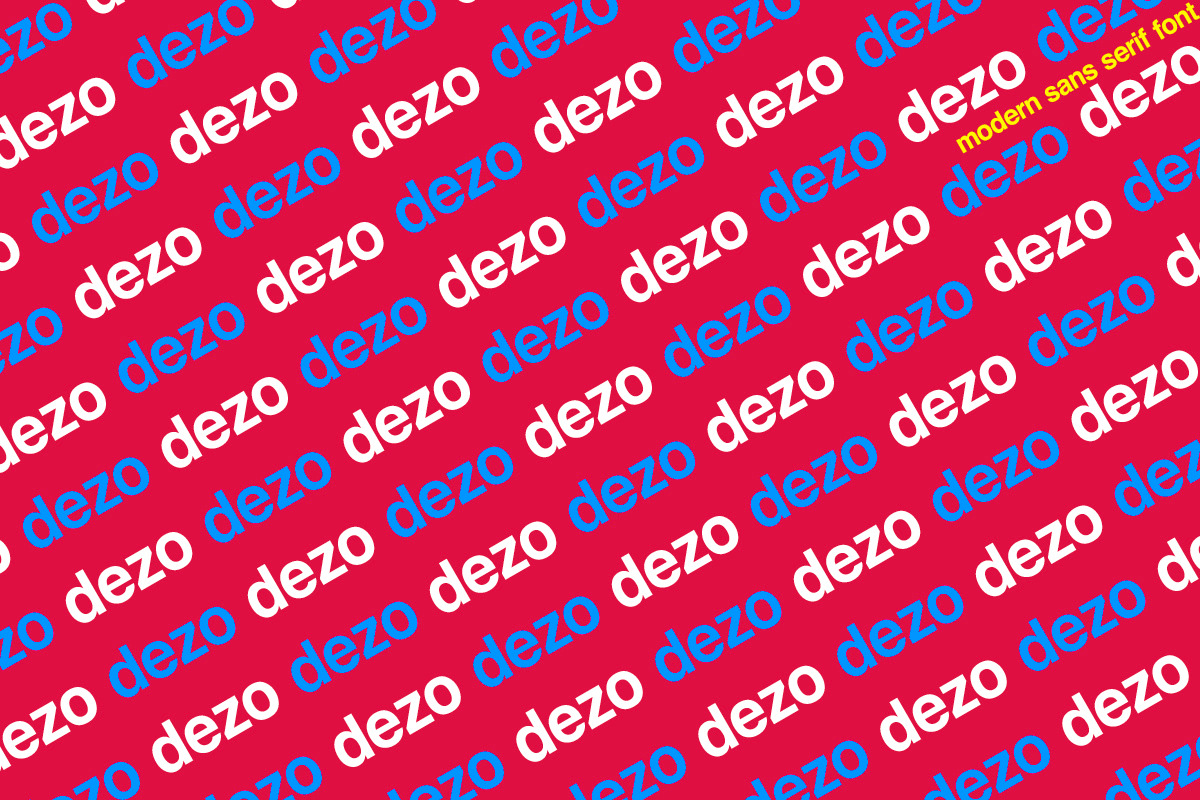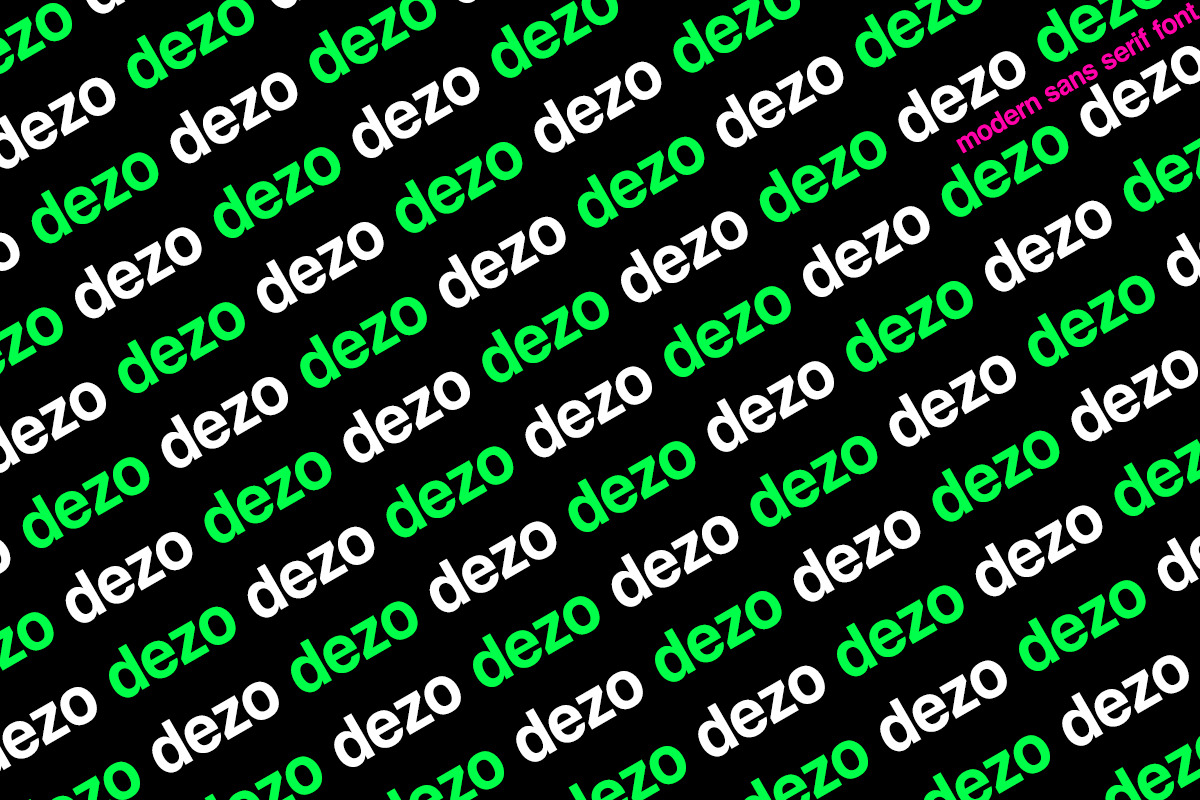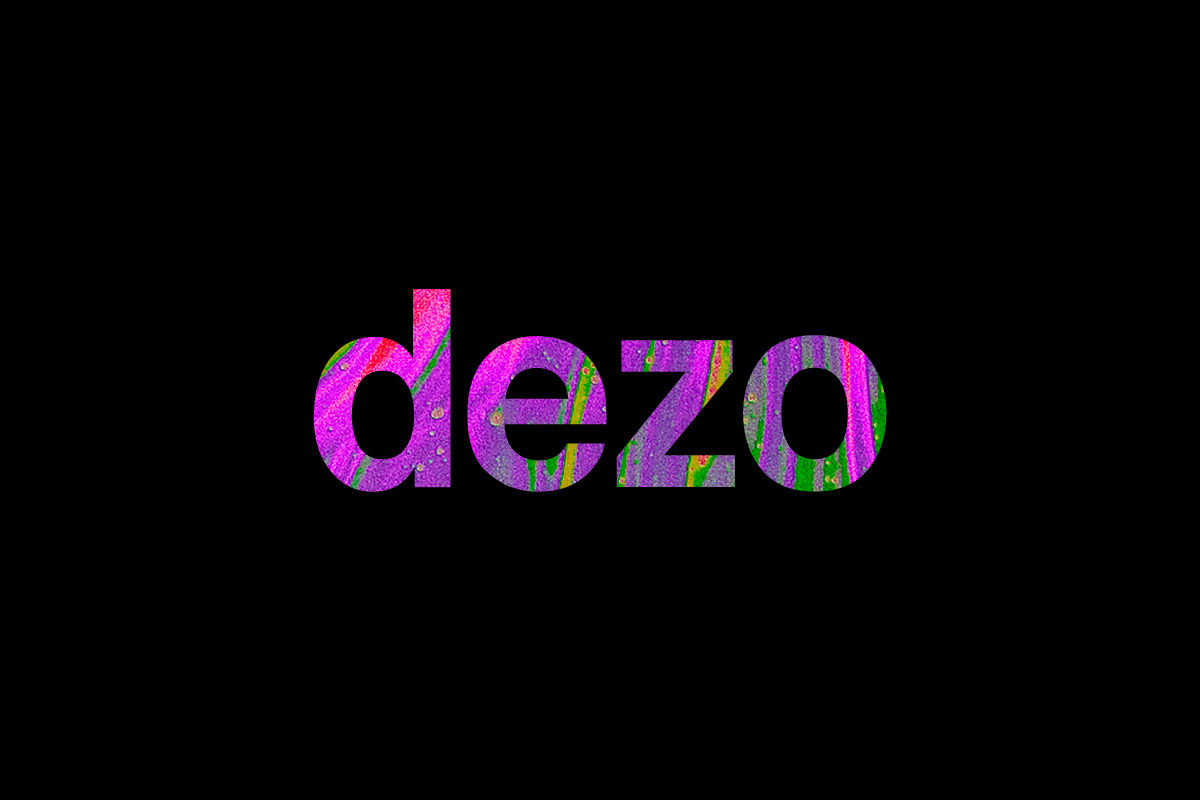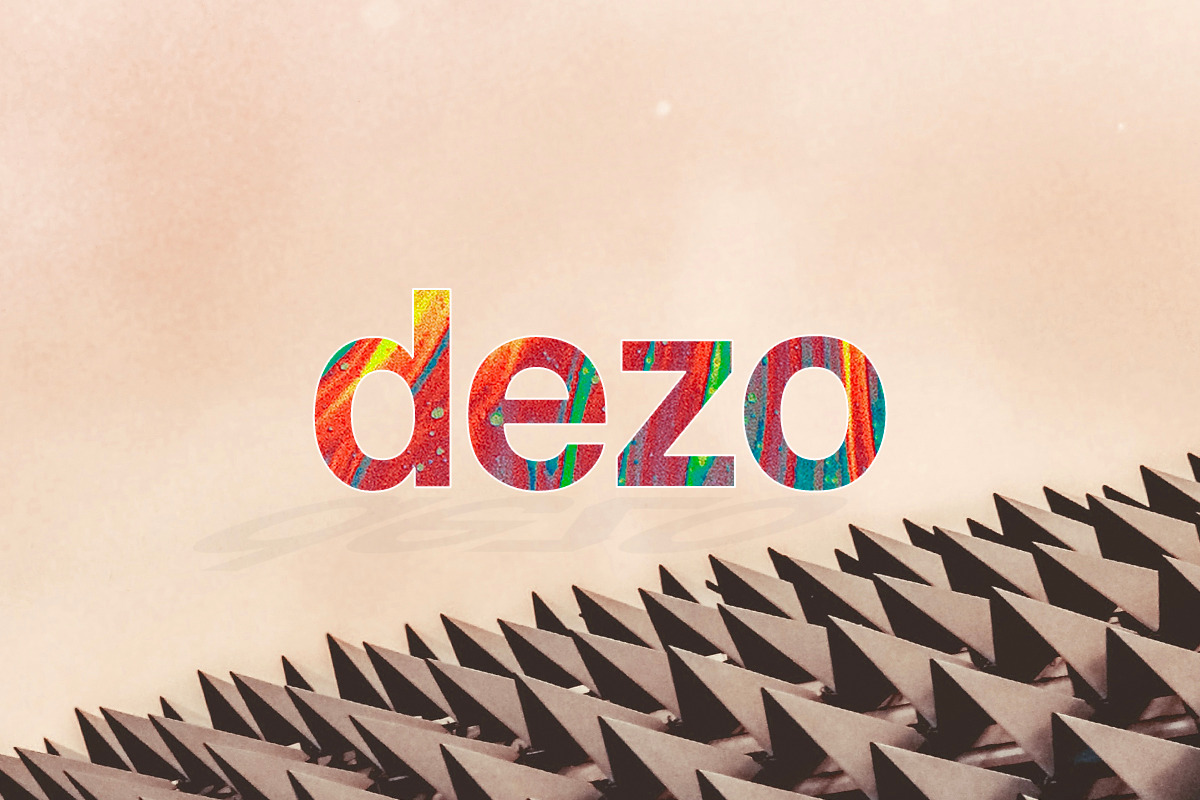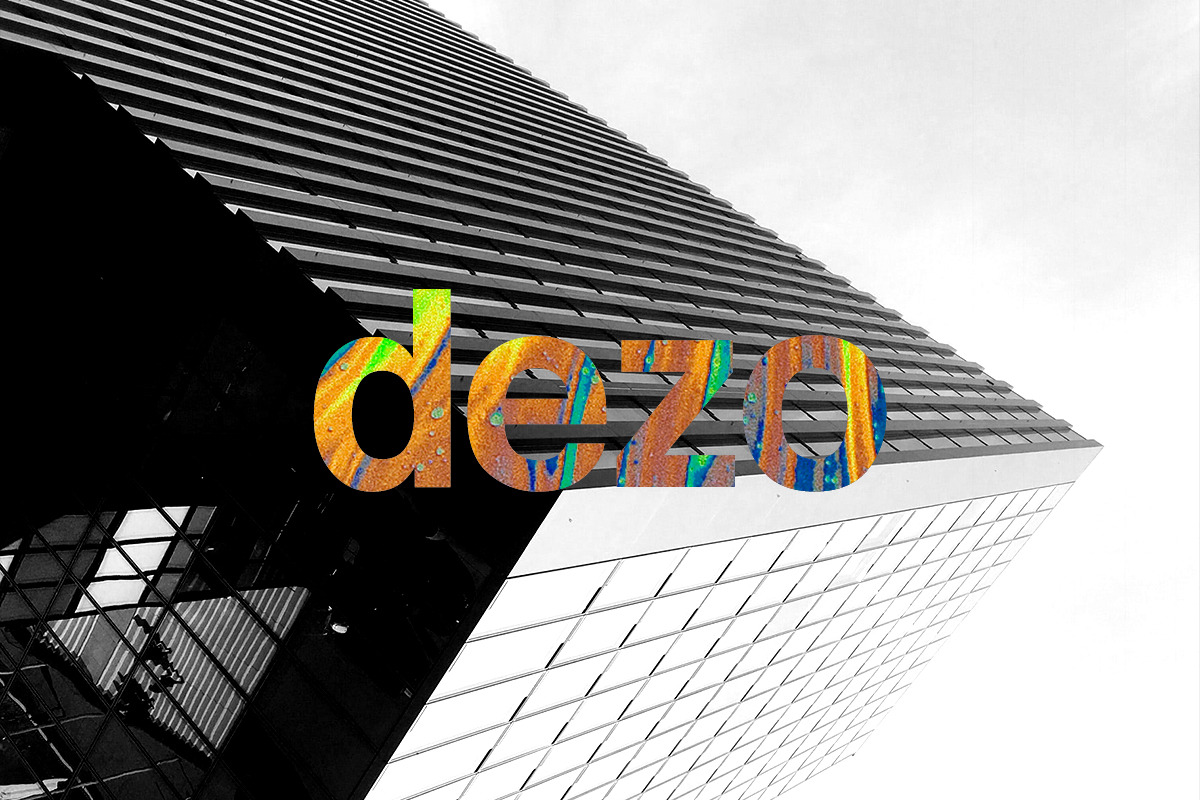
Dezo Modern Clean Sans Serif Font
dezo - Modern Playful Sans Serif Font
dezo is a fun, modern, clean, and simple font lowercase font. Great for adding a touch of personality to a project.